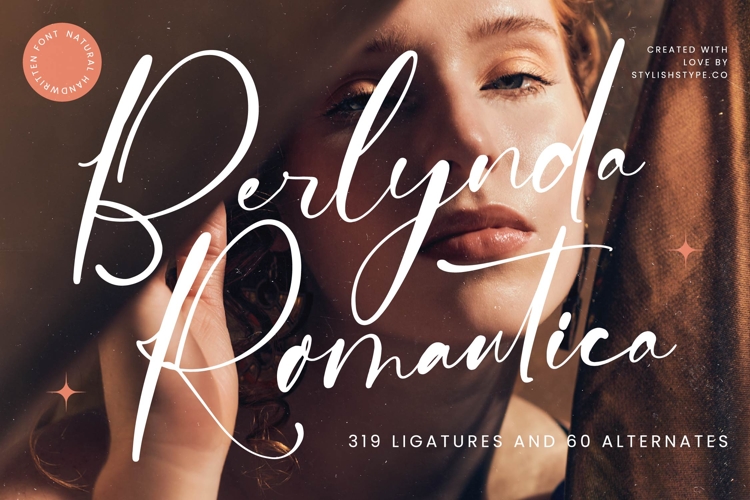
Berlynda Romantica - Natural Handwritten
Berlynda Romantica - Natural Handwritten Font
Elevate your design projects with the unparalleled grace of Font Berlynda Romantica - Natural Handwritten Font Script. This exquisite typeface masterfully blends the organic charm of a genuine handwritten script with a refined, professional finish, making it the ultimate choice for conveying sincerity and sophisticated elegance. Its fluid strokes and harmonious rhythm instantly imbue any text with a bespoke, human touch, promising distinctive visual impact.
Unleash limitless creative possibilities through its rich feature set. Font Berlynda Romantica - Natural Handwritten Font Script boasts an impressive collection of 319 ligatures and 60 alternates, allowing for unparalleled customization and unique textual expression. These extensive stylistic options ensure every design feels authentically crafted, providing the organic variations essential for creating truly expressive and memorable typography across diverse applications.